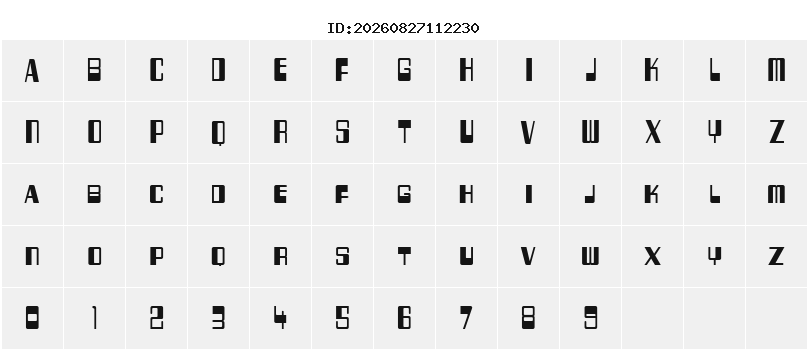
256 Bytes.ttf is a modern, elegant sans-serif font designed for ultimate readability and visual harmony. Perfect for branding, headlines, web design, and print materials.